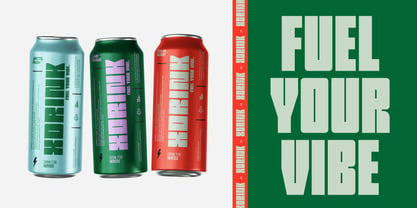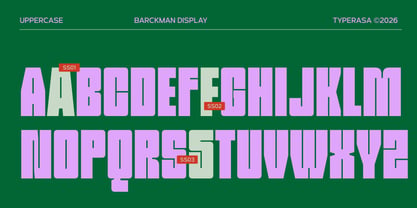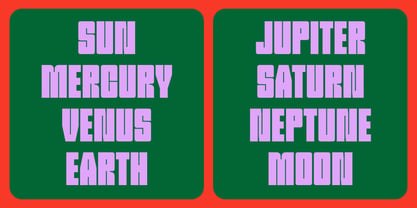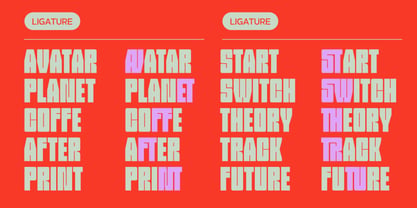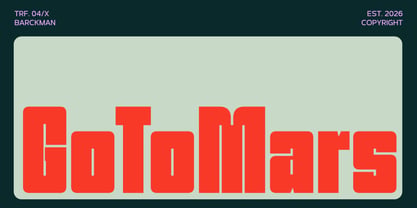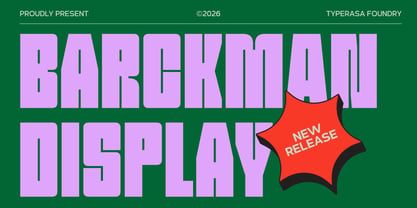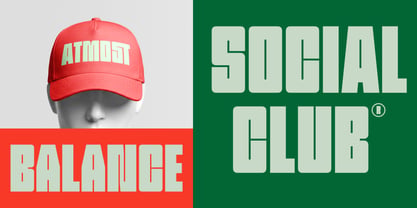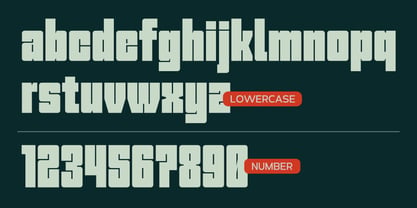
Barckman
by Typerasa
The Barckman Font Family was designed by Rizky Herdii and published by Typerasa. Barckman contains 1 styles. More about this family
Barckman brings a bold typographic style with an experimental edge. Its wide and assertive letterforms are combined with unconventional design elements, creating a unique and energetic appearance. This font is ideal for creative projects that aim to stand out and break the norm. With its strong visual presence, Barckman commands attention across a variety of applications, from striking headlines and poster designs to branding, editorial layouts, and digital content. Each character is crafted to balance structure and unpredictability, giving designers the freedom to explore expressive compositions without losing readability.
Designers: Rizky Herdii
Foundry: Typerasa